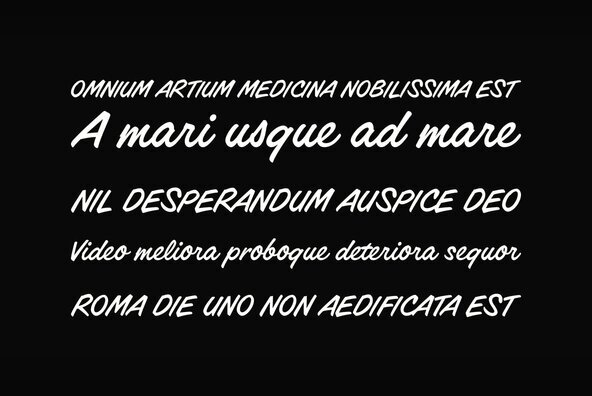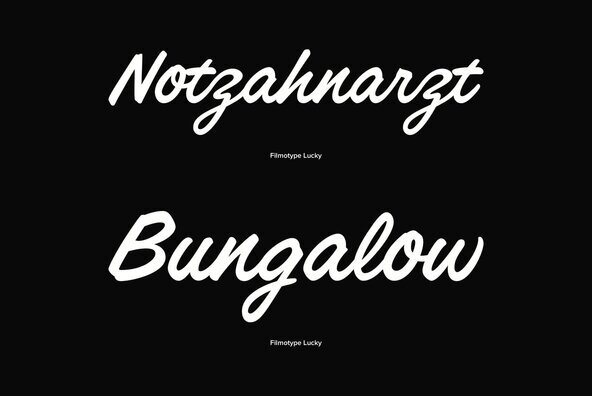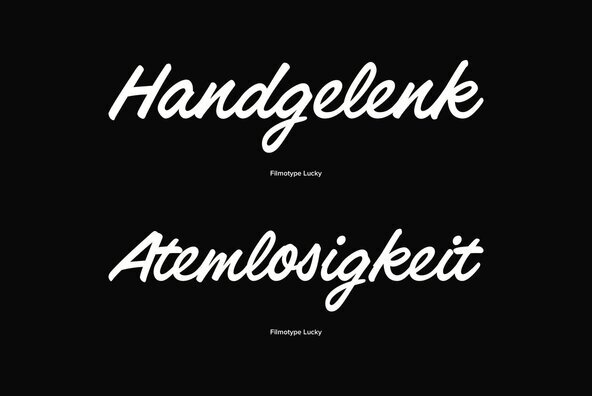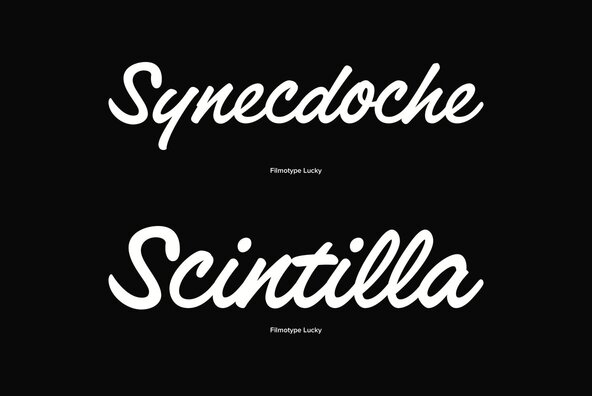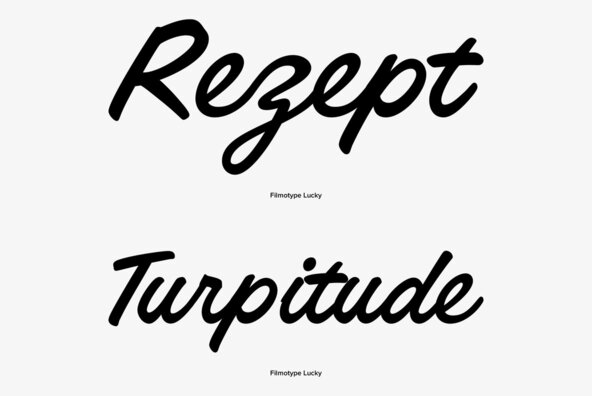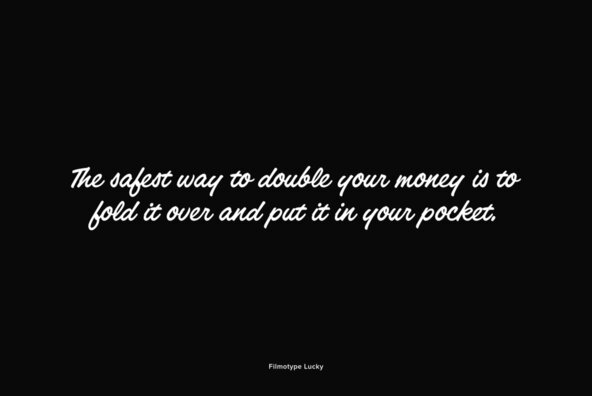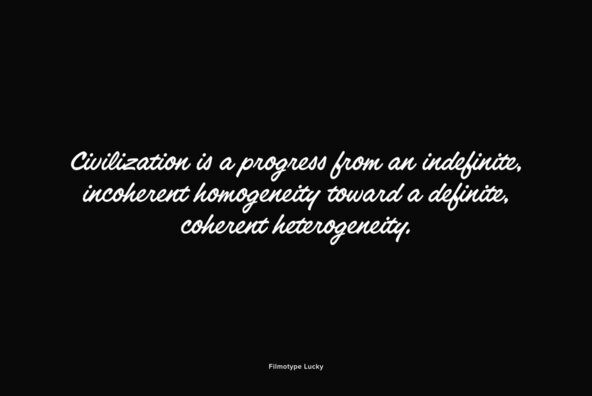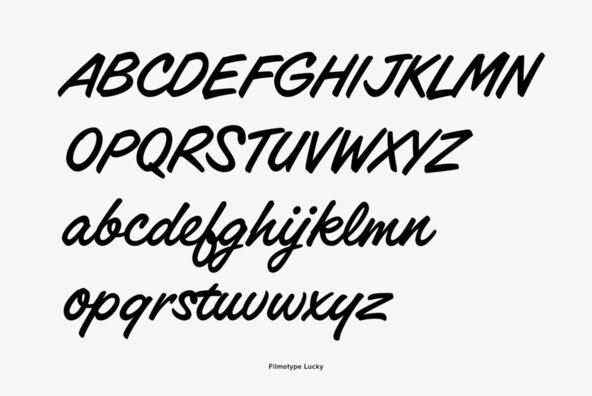
Filmotype Lucky
Among the early collection of handwritten script fonts offered by Filmotype in the beginning of the 1950s, the monoline script Filmotype Lucky was originally penned by Ray Baker in the early 1950s.Remastered and expanded with exacting precision from the original filmstrips, Filmotype Lucky includes a full international character compliment, automatic fractionals, ordinals, and a suite of alternates in dynamic OpenType format for a smooth connecting look.